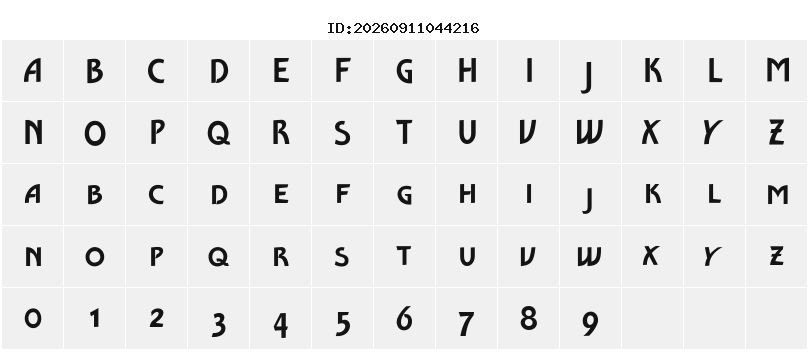
Ventoux Plain SmallCaps Preview
• Font Name: Ventoux Plain SmallCaps
• Full Font Name: Ventoux Plain SmallCaps PDF
• PostScript Name: VentouxPlainSmallCaps
About Ventoux Plain SmallCaps.ttf
Ventoux Plain SmallCaps.ttf is a modern, elegant sans-serif font designed for ultimate readability and visual harmony. Perfect for branding, headlines, web design, and print materials.